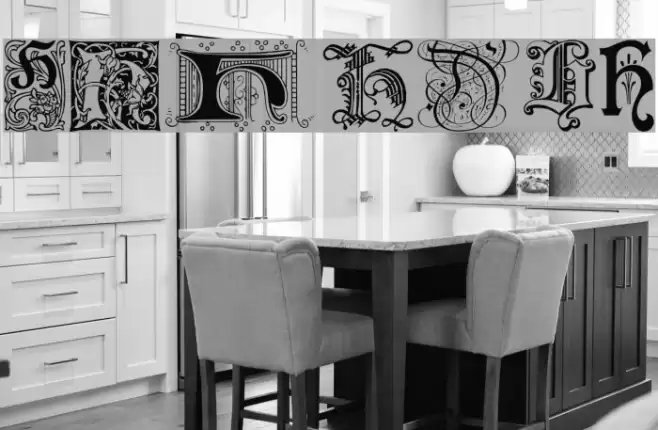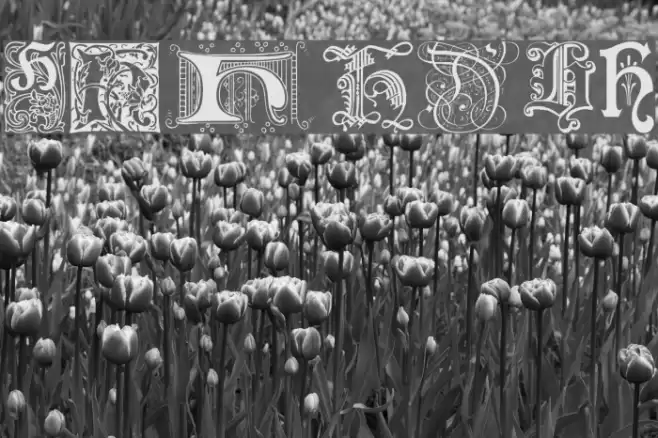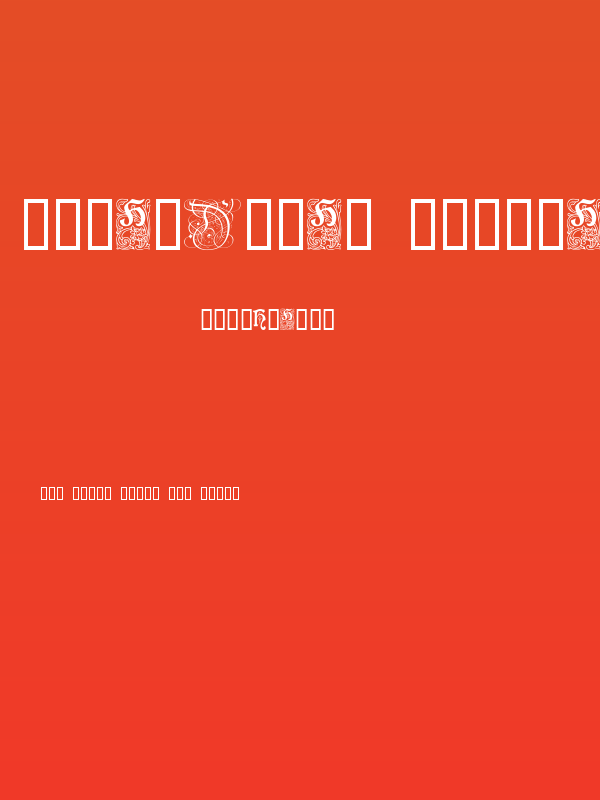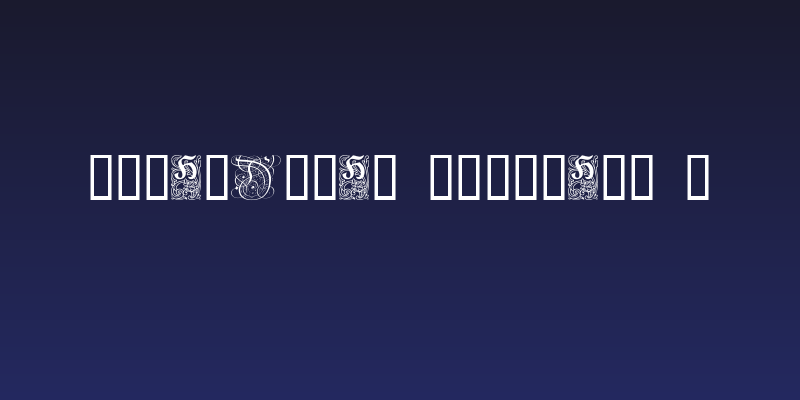
Ornamental Initials H Font
Ornamental Initials H Description
This font is a highly decorative and intricate typeface, characterized by its elaborate and ornate design. Each letter is crafted with detailed embellishments, featuring flourishes and intricate patterns that give it a regal and antique appearance. The style is reminiscent of medieval manuscripts or vintage book covers, making it ideal for projects that require a touch of elegance and historical charm. The font's complexity and artistic flair make it stand out, capturing attention with its unique and sophisticated aesthetic.
| Proposed Projects | Ideal for use in wedding invitations, luxury branding, historical publications, and decorative book covers. |